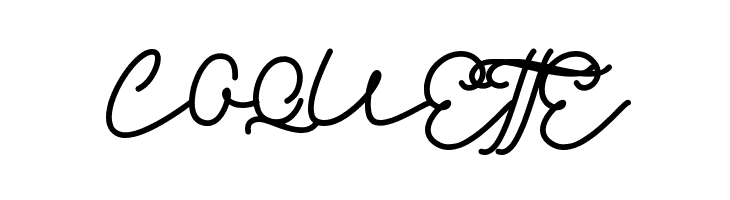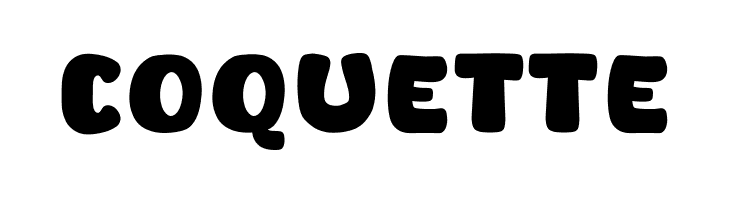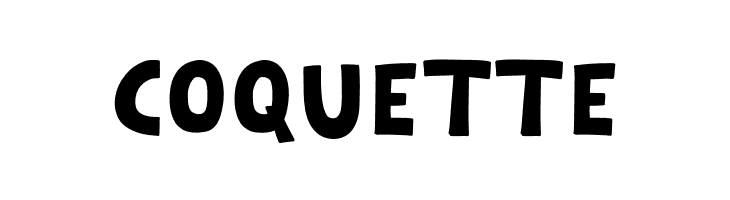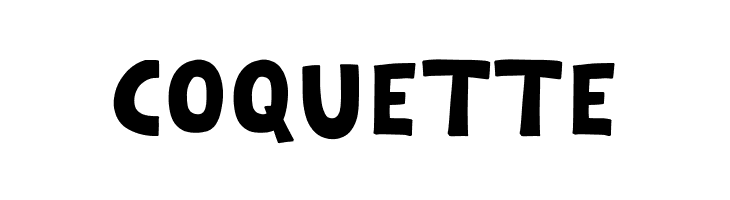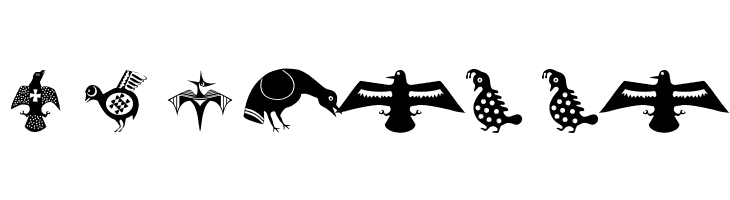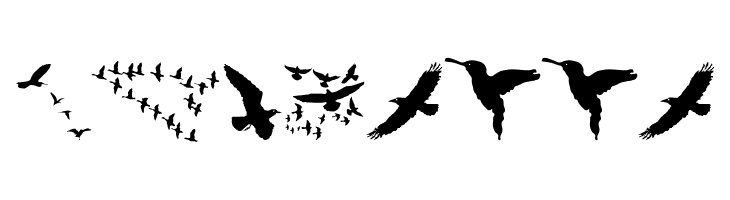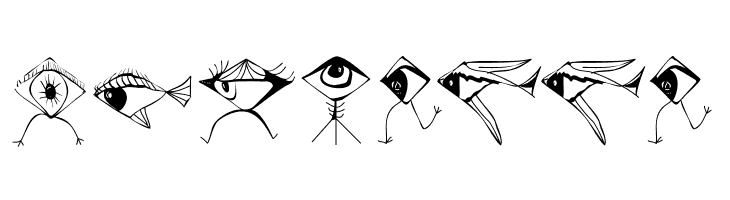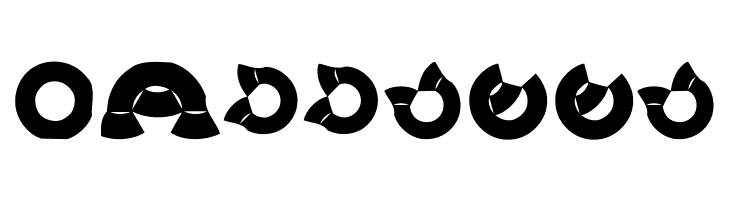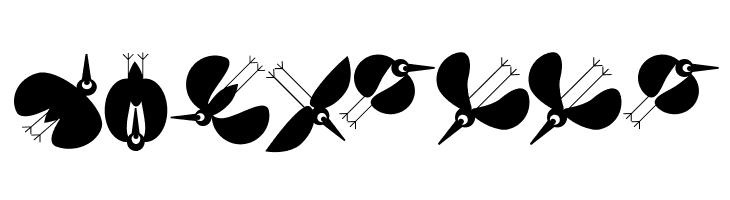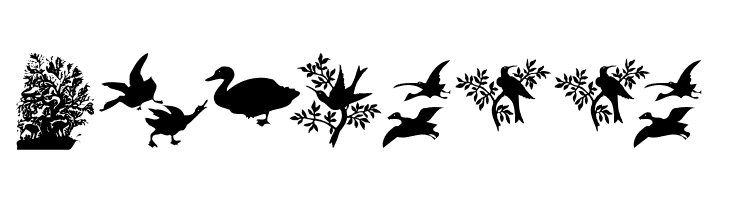
A modern, slanted script font with fluid, connected characters.
A bold, geometric font with a futuristic, stencil-like design.
A bold, slanted, and futuristic font with angular, geometric shapes.
A bold, 3D slanted font with a futuristic and playful design.
A playful, bold font with rounded edges and a bubbly appearance.
A playful, bold font with rounded edges and a friendly appearance.
A fluid, cursive font with a natural handwriting style.
An artistic font with characters designed to resemble bird feathers.
A decorative font with feather-like embellishments for a whimsical, nature-inspired look.
An italic, feather-adorned decorative font with a whimsical, organic style.
A decorative font with feather-like embellishments on each character.
A playful, bold, hand-drawn font with a whimsical and informal style.
A playful, bold font with a hand-drawn, whimsical style.
Bird silhouettes used as glyphs for each character.
A collection of whimsical bird illustrations in various playful styles.
Silhouette-style animal and bird icon font.
A whimsical and decorative design featuring playful bird-like characters.
Ornamental display font with bird-themed pictorial glyphs.
Ornamental font with bird and nature silhouette illustrations.
A display font featuring unique bird illustrations for each character.
A decorative, hand-drawn dingbat font of birds and leaves.
A decorative font inspired by intricate bird motifs with artistic and detailed designs.
Bird-themed dingbat font with diverse bird and eagle silhouettes.
A whimsical, decorative font inspired by birds and fish, featuring intricate and playful designs.
Ornate dingbat font with plant and bird motifs.
A display font featuring bird illustrations as characters.
Bird-themed dingbat font with diverse bird illustrations.
A decorative and abstract font with bird-like motifs and bold, circular shapes.
A decorative font made of stylized bird illustrations for each character.
A whimsical, bird-themed decorative font with playful avian elements.
A playful, bird-themed decorative font with each character designed as a unique avian figure.
Decorative bird-themed symbols with intricate designs in circular frames.
A bold, handwritten font with a playful and informal style.